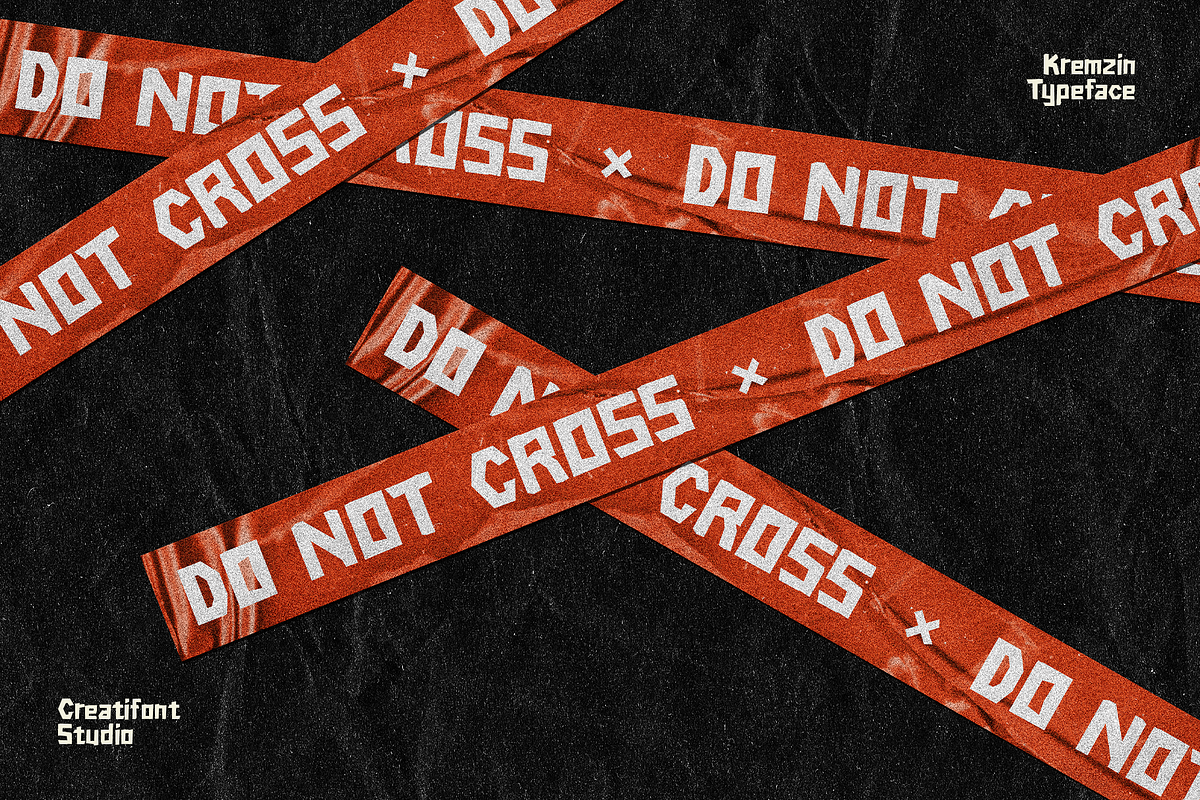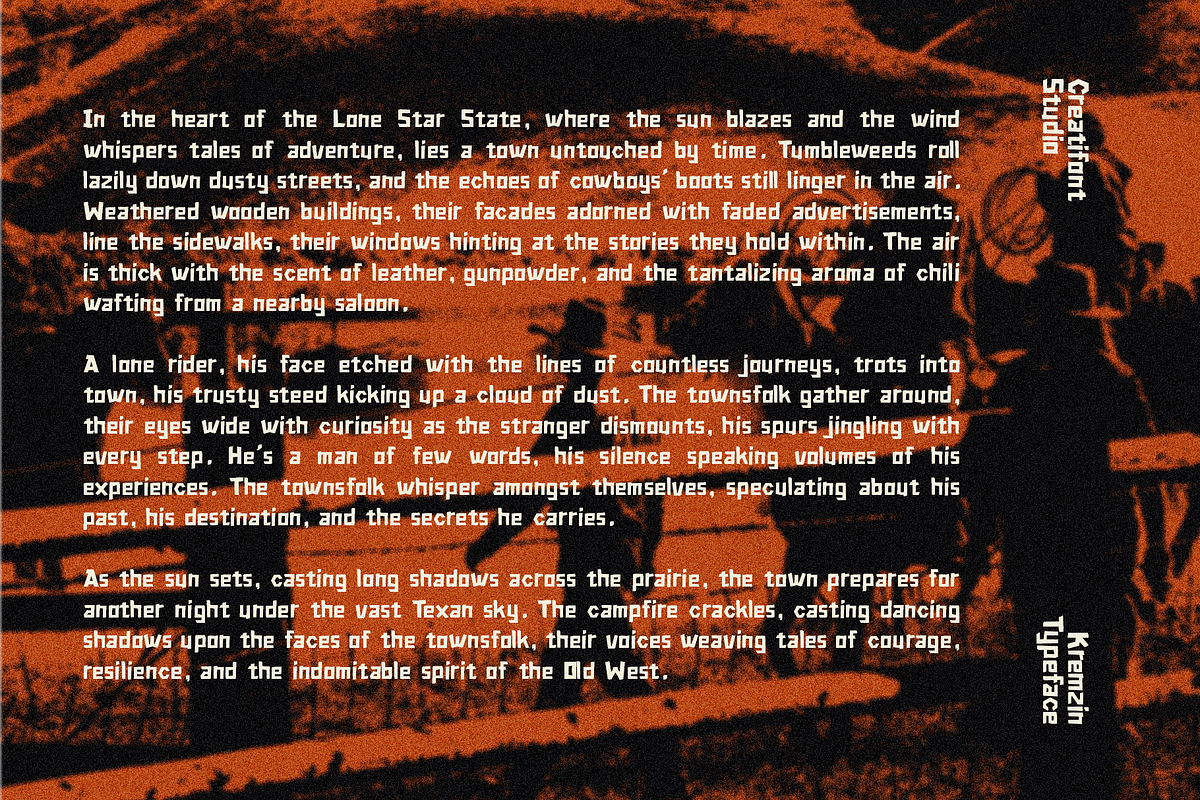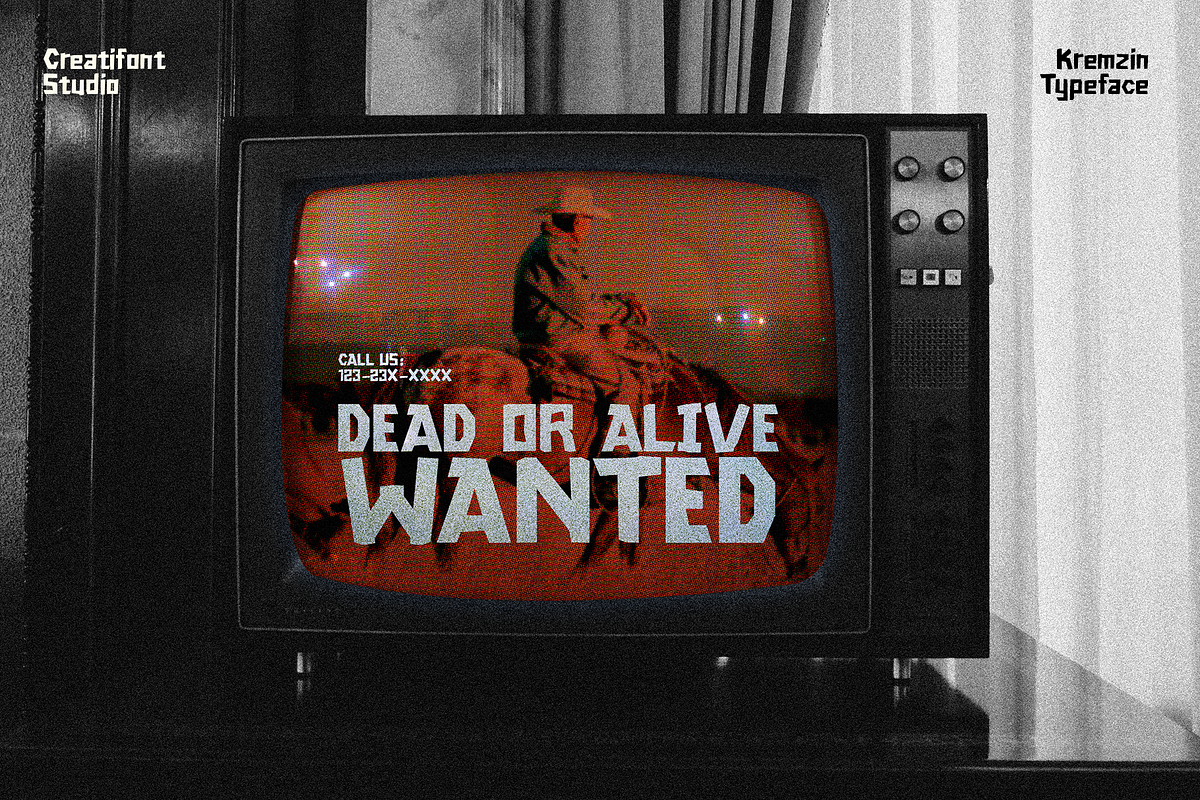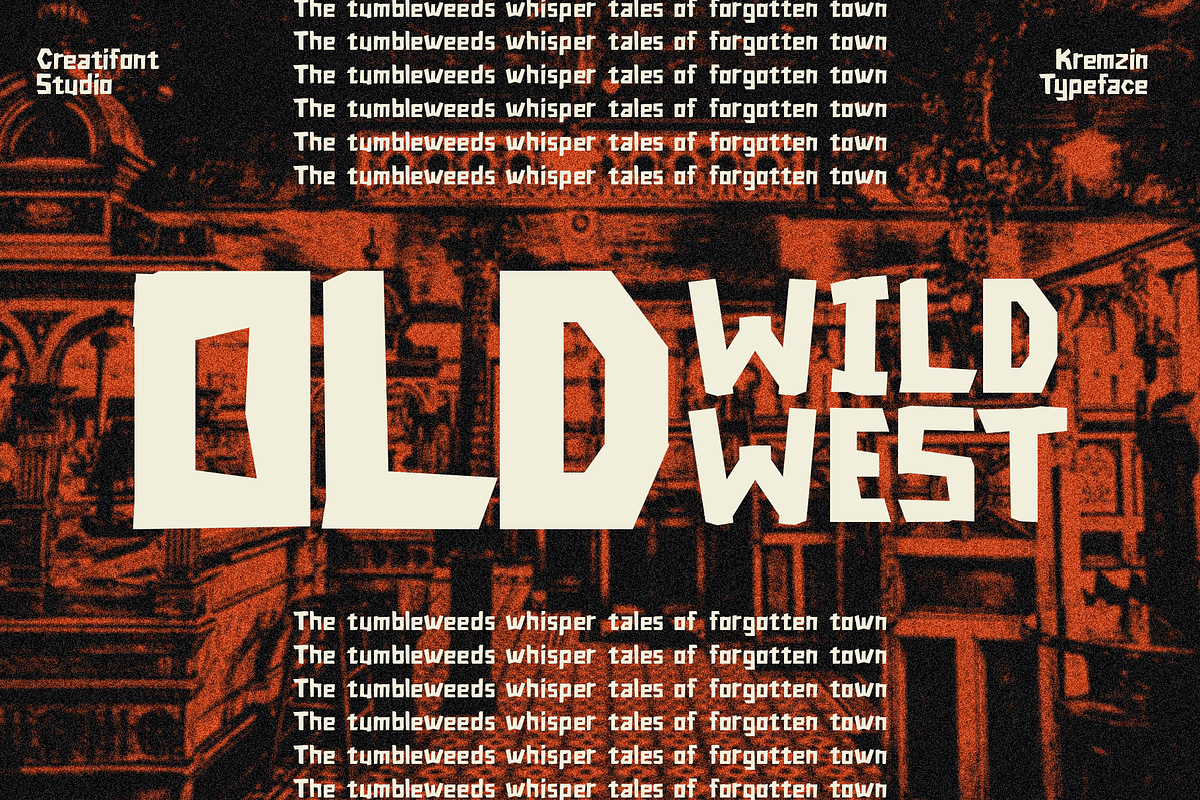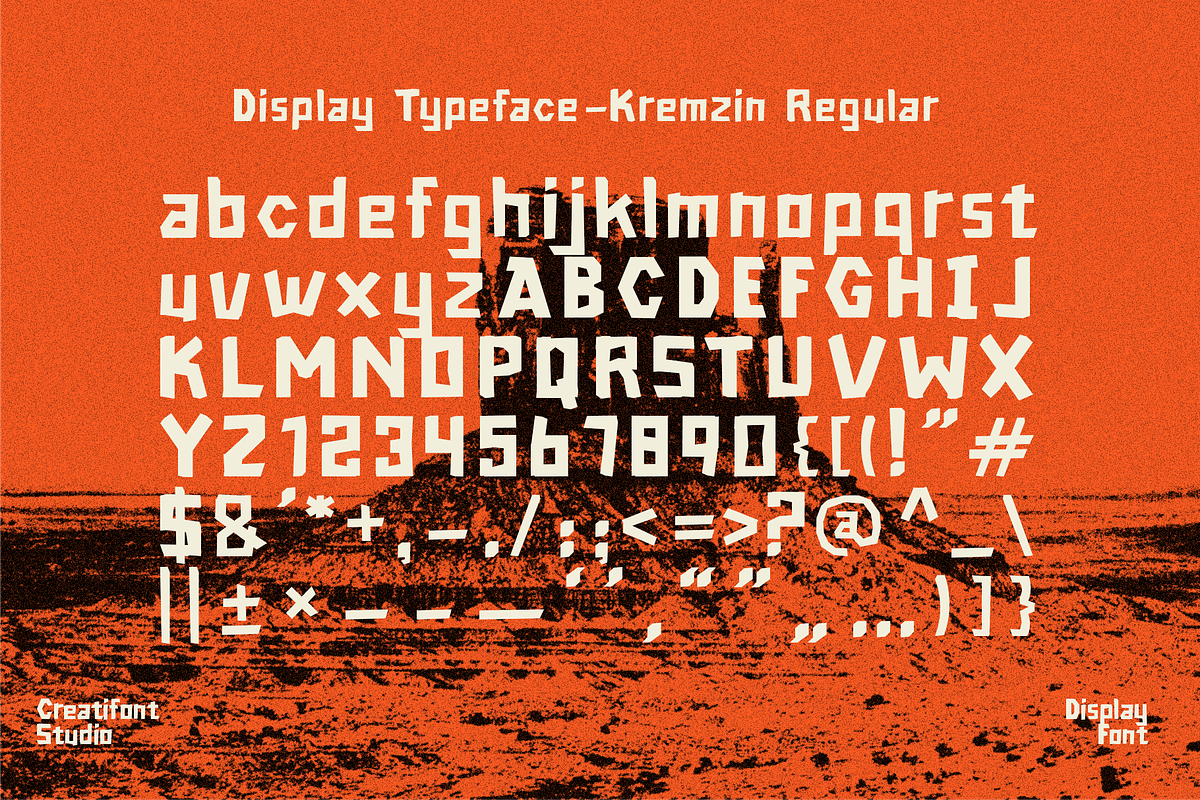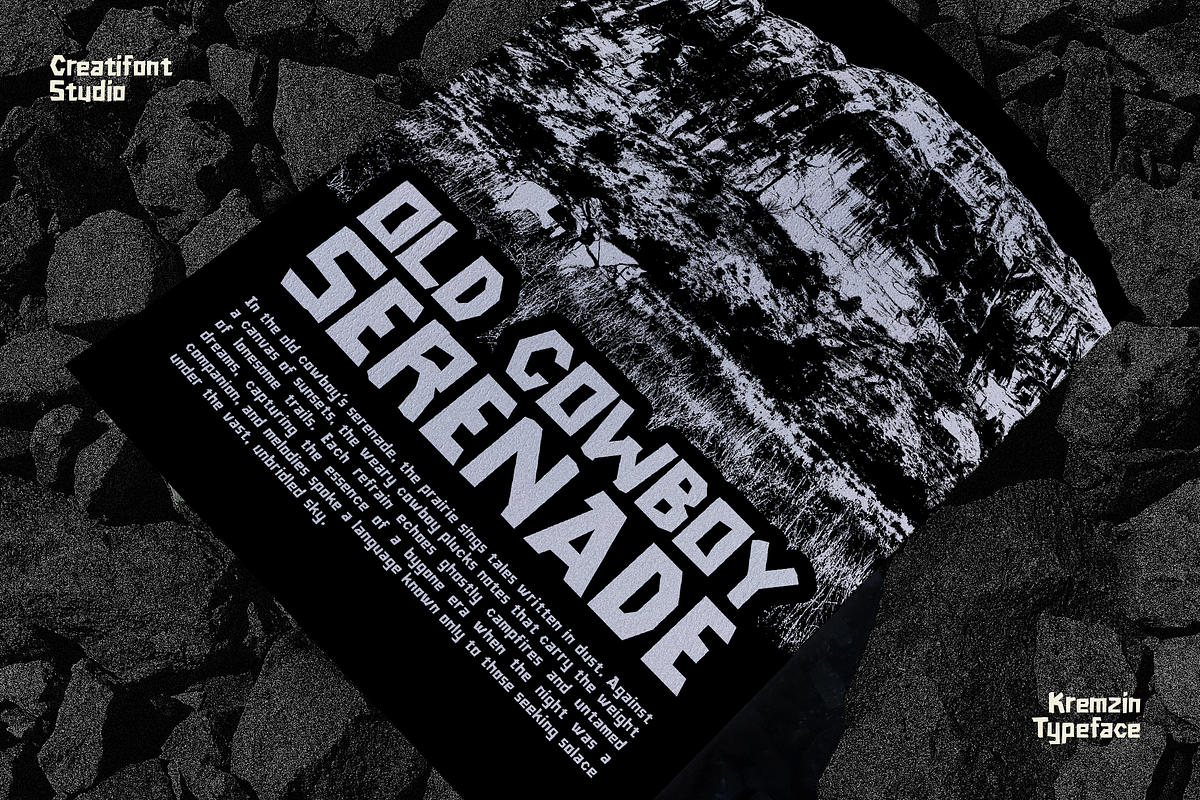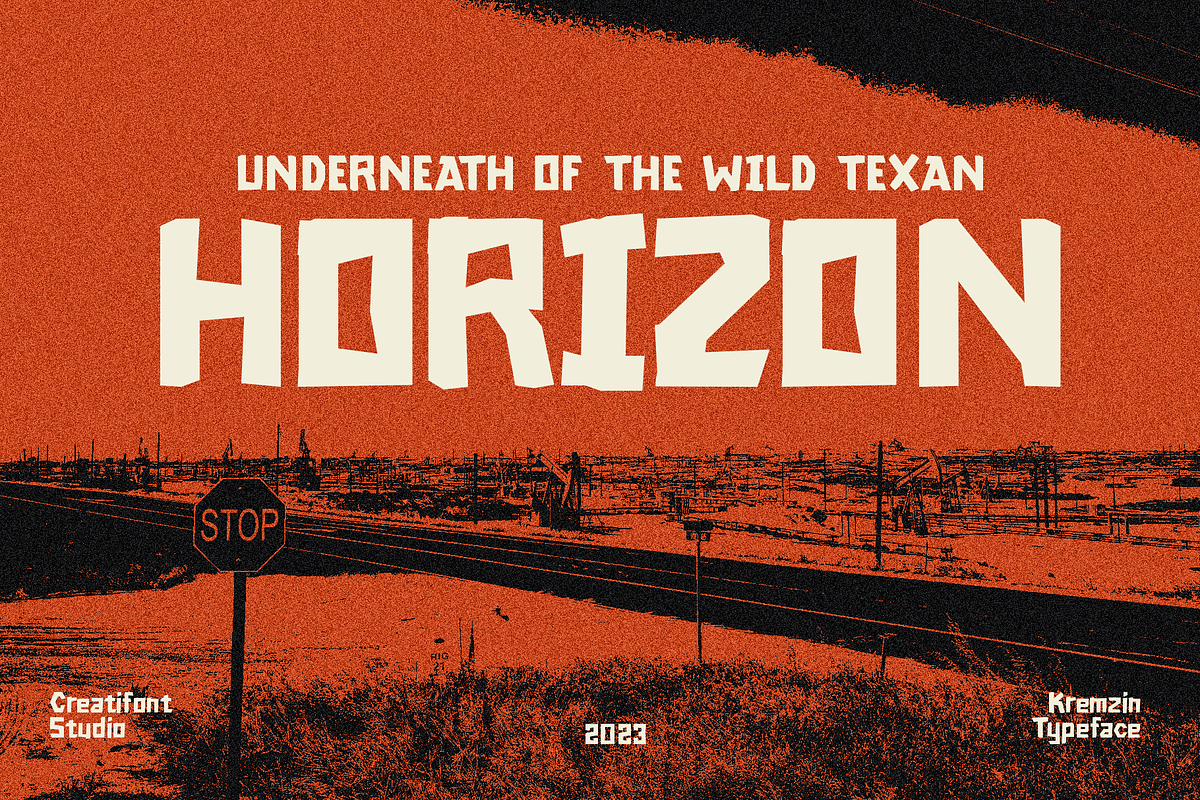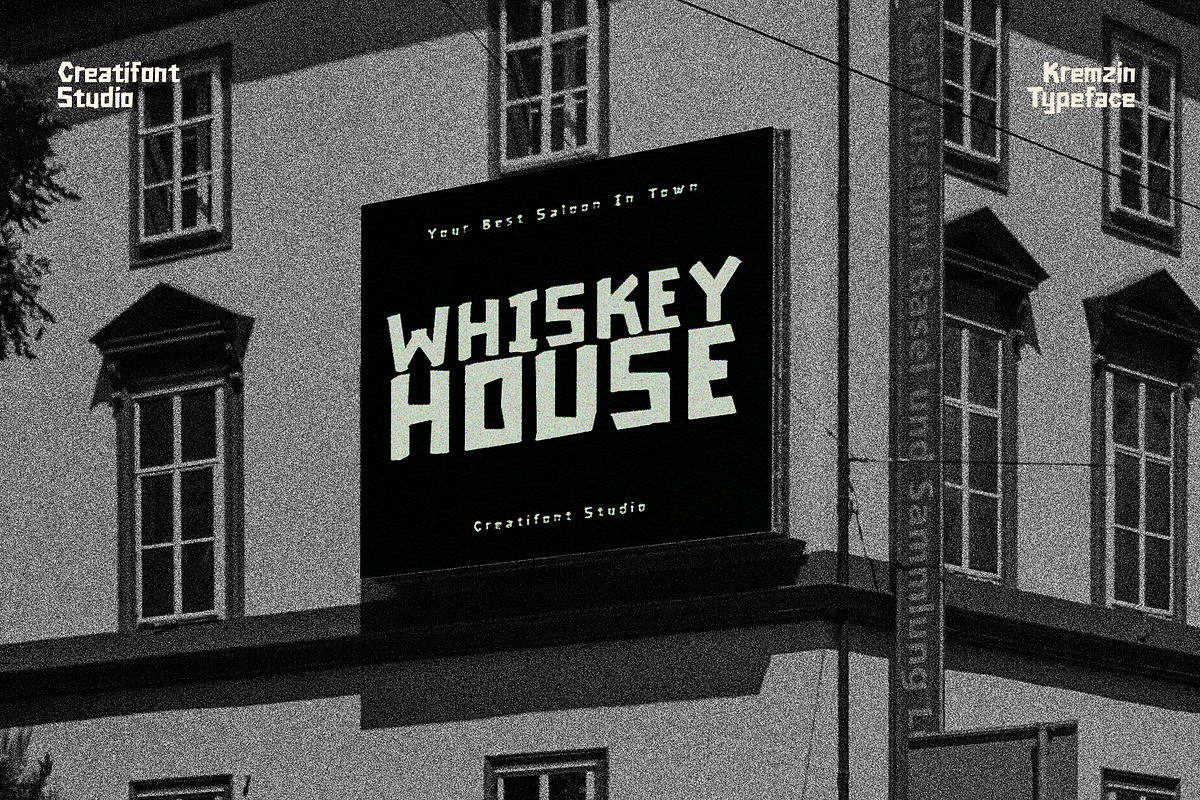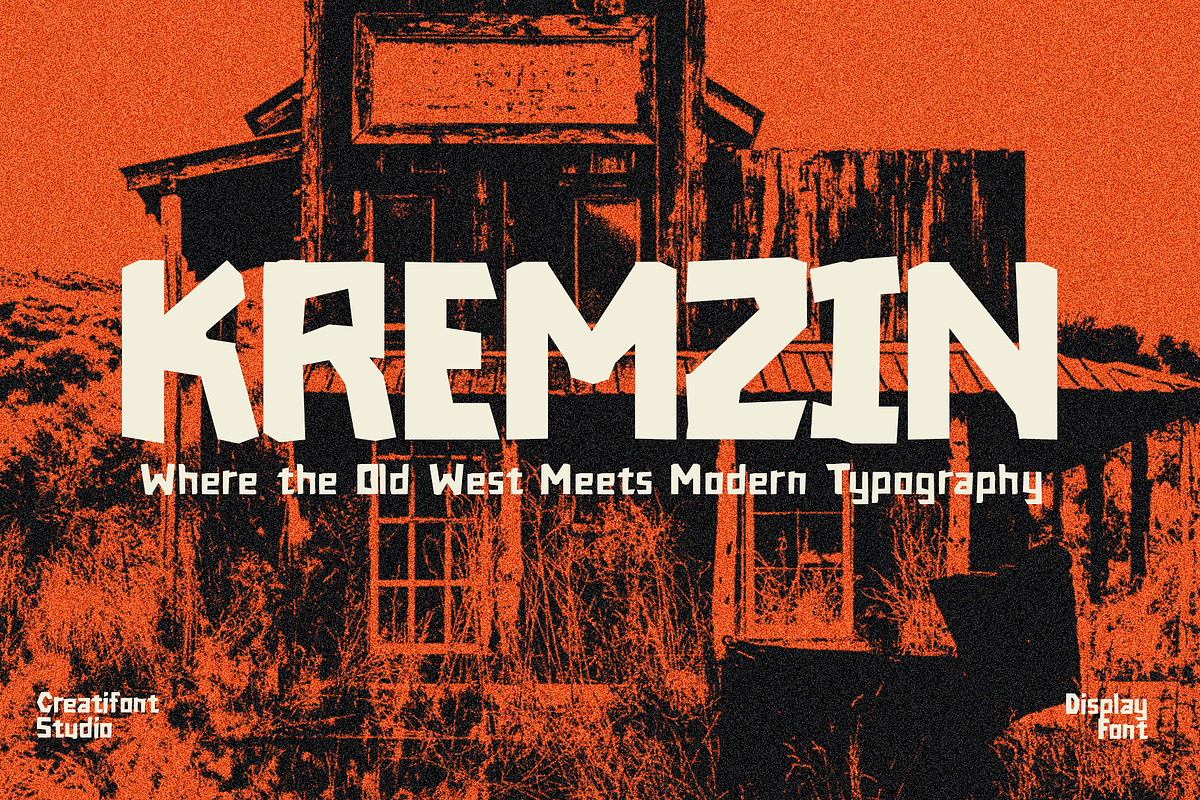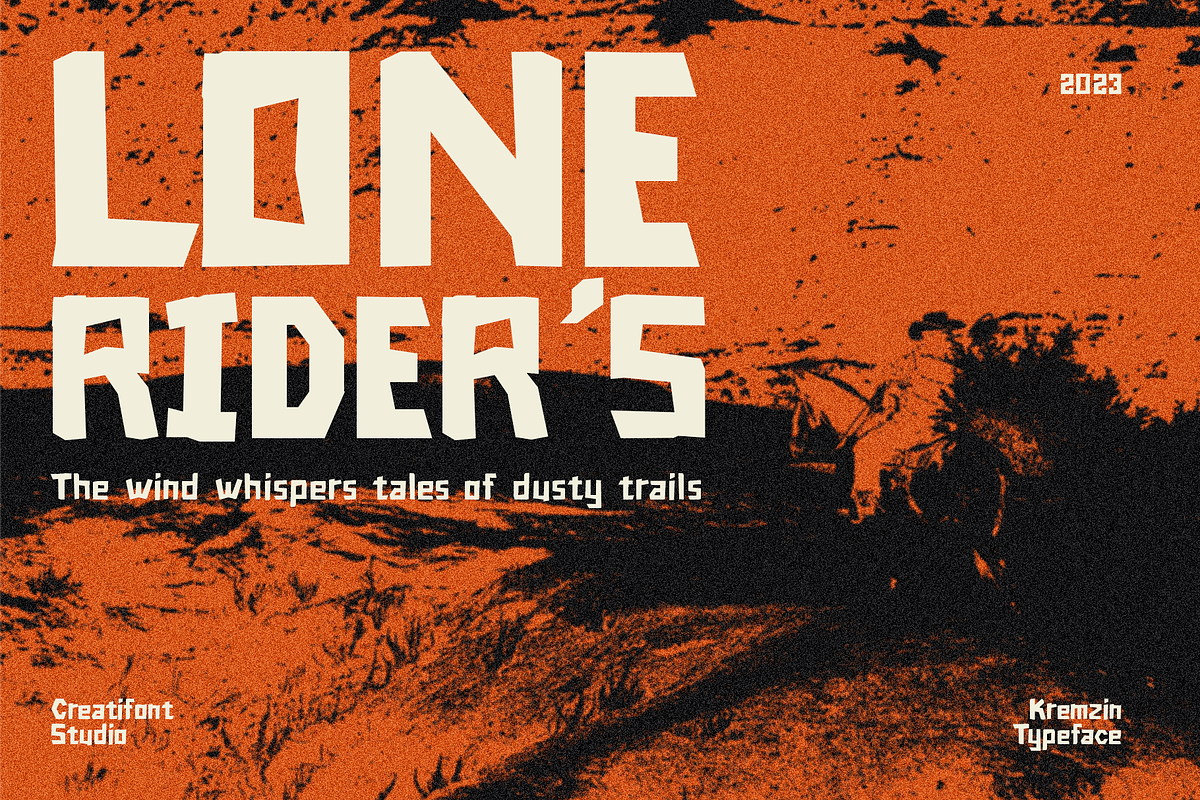
CF Kremzin - Quirky Decorative
Kremzin - is a quirky decorative font that combines the Old West and modern typography. It is characterized by its bold, blocky letters, playful strokes, and unique ligatures. Kremzin is perfect for projects that need a fun and eye-catching font, such as logos, posters, headers, and social media graphics.